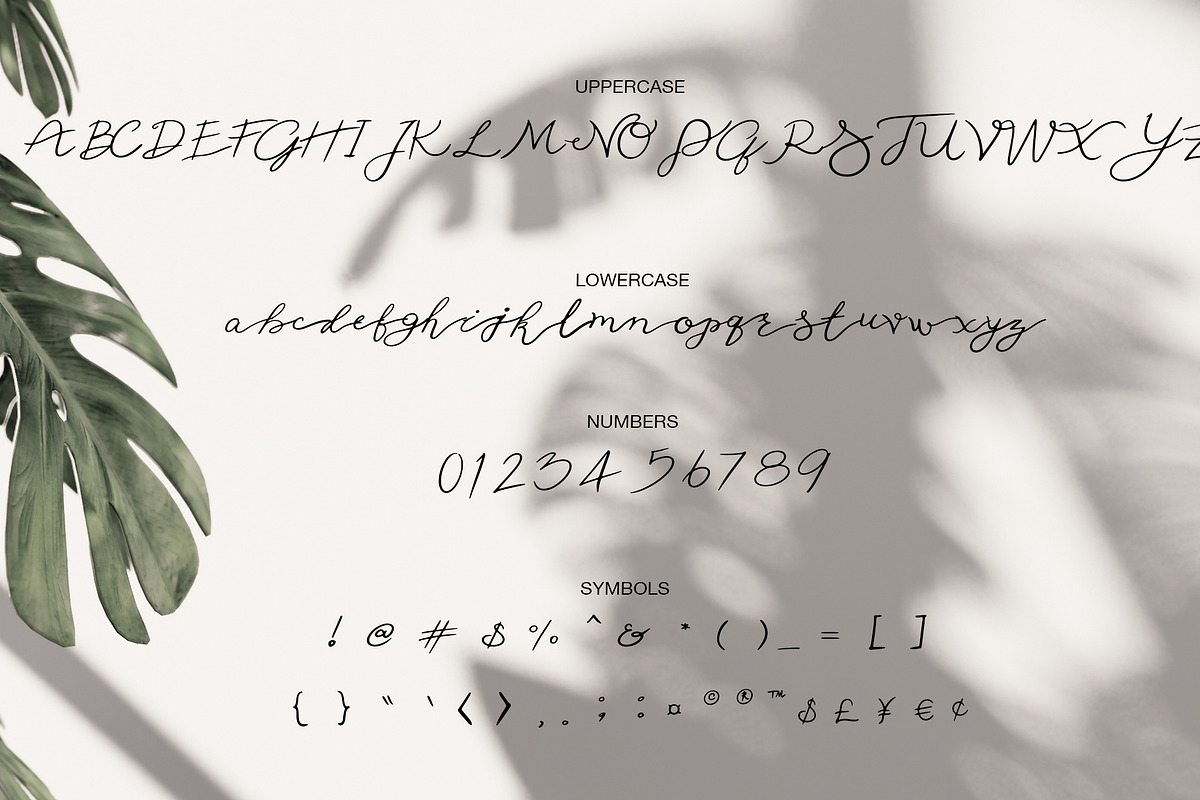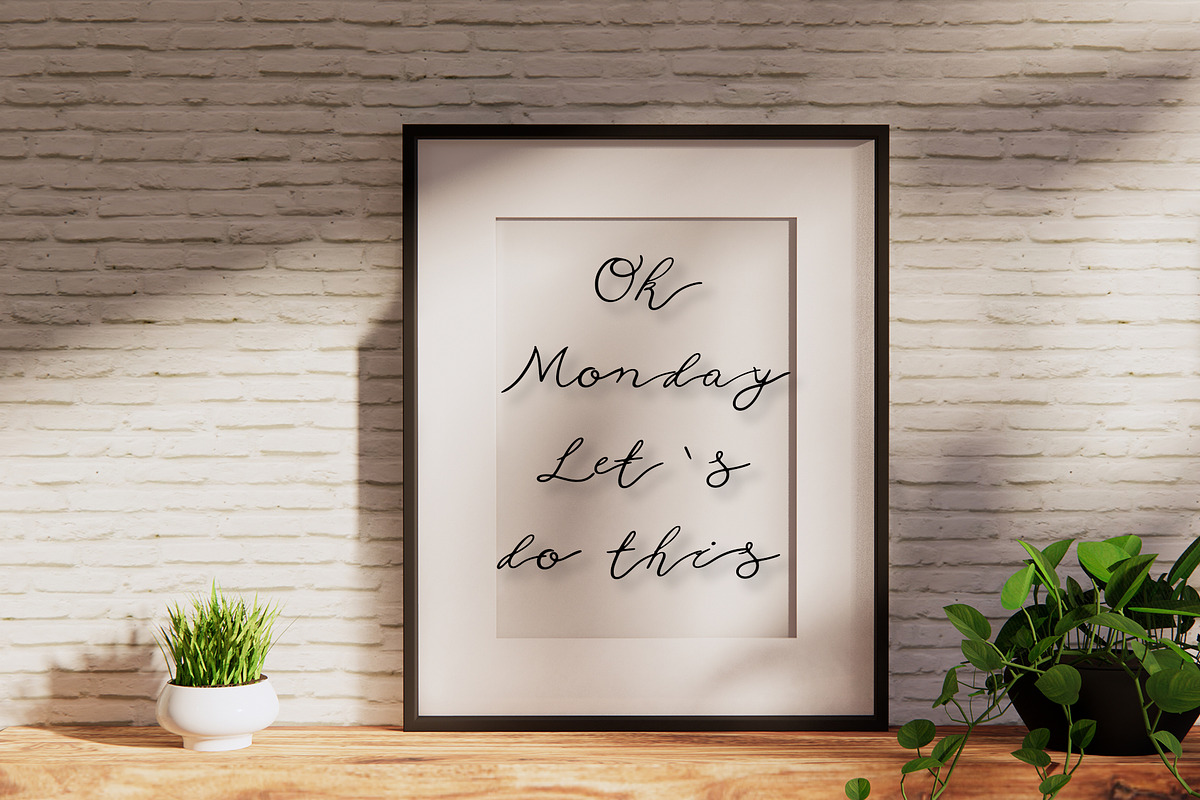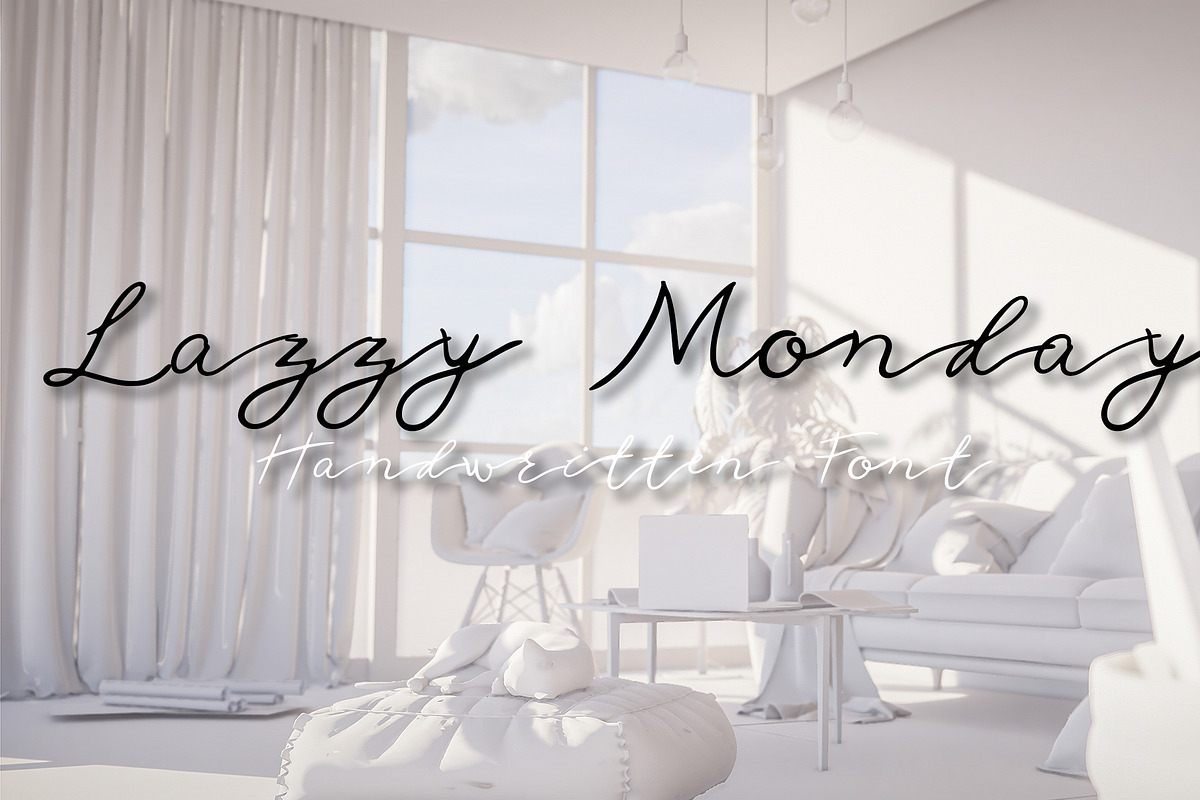
Lazzy Monday font
Oh no, more Monday ! Lazzy Monday font is simple handwriting font for lazy people. With characters that look good, chill-free, suitable for use as text on your online content cover or personal blog. Try it out and you'll fall in love with the Lazzy Monday font.
- With characters that look good, chill-free, suitable for use as text on your online content cover or personal blog.
Why Lazzy Monday font is worth a look
Lazzy Monday font by skyclick fits naturally into Branding, posters, packaging, typography.